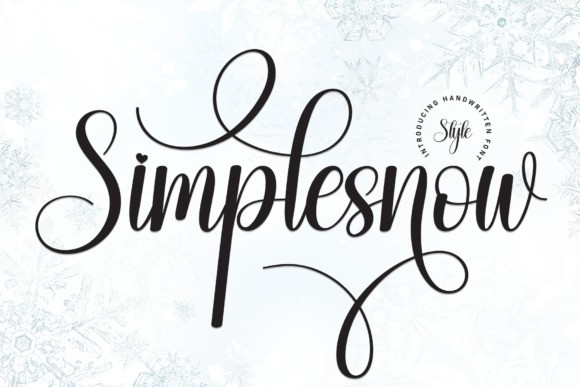
Simplesnow Script Font
Simplesnow Script Font is a charming handwritten font featuring stylish swashes that add a touch of elegance to your text. With a clean and simple design, this font captures the warmth of handwritten notes while introducing a subtle flair with its graceful swashes.
Simplesnow is perfect for projects that require a personalized and inviting feel, making it an ideal choice for everything from greeting cards to creative branding. Embrace the beauty of simplicity with Simplesnow’s unique blend of handcrafted charm and stylish detailing.